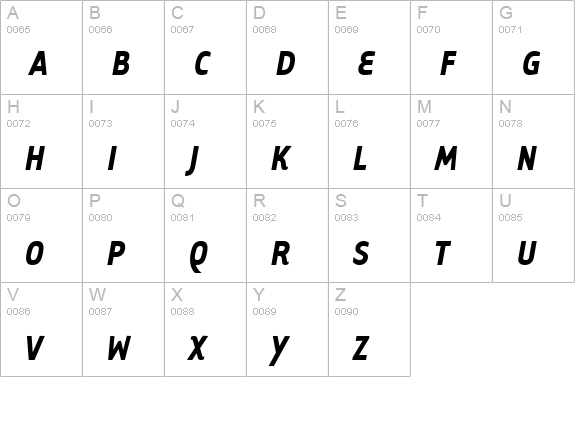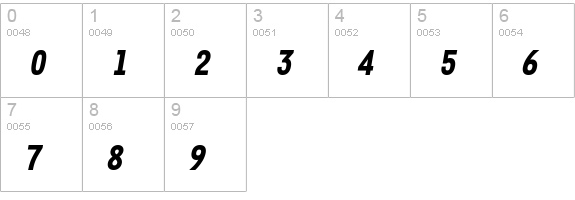
TarzanaNarrow Bold Italic is a strong, high-contrast, italic variant in the TarzanaNarrow typeface family \xE2\x80\x94 well suited to headlines, attention-grabbing titles, and strong calls-to-action.
TarzanaNarrow Bold Italic font is a captivating and stylish typeface that exudes confidence and sophistication. Its unique combination of boldness and italics creates a striking visual impact, making it the perfect choice for adding a touch of elegance to any design project. This font's narrow structure adds a modern and sleek feel, making it ideal for headlines, titles, and branding materials. Whether you're designing a logo, a poster, or a website, TarzanaNarrow Bold Italic font will effortlessly elevate your design and make it stand out. The free availability of TarzanaNarrow Bold Italic font at FontsMarket.com makes it even more appealing. You can easily download this exceptional font and explore its endless possibilities. Use it in both personal and commercial projects without any restrictions, allowing you to unleash your creativity without worrying about licensing fees. Its versatility and legibility make TarzanaNarrow Bold Italic font suitable for a variety of applications, including advertising, packaging, invitations, and more. Its bold and italic styles combine harmoniously to create a sense of dynamism and energy, making your text truly captivating. With TarzanaNarrow Bold Italic font, you can bring your designs to life and make a lasting impression. Its sleek and modern aesthetic, coupled with its free availability, makes it a must-have in any designer's font collection. Download it today at FontsMarket.com and unlock the potential of this remarkable typeface.